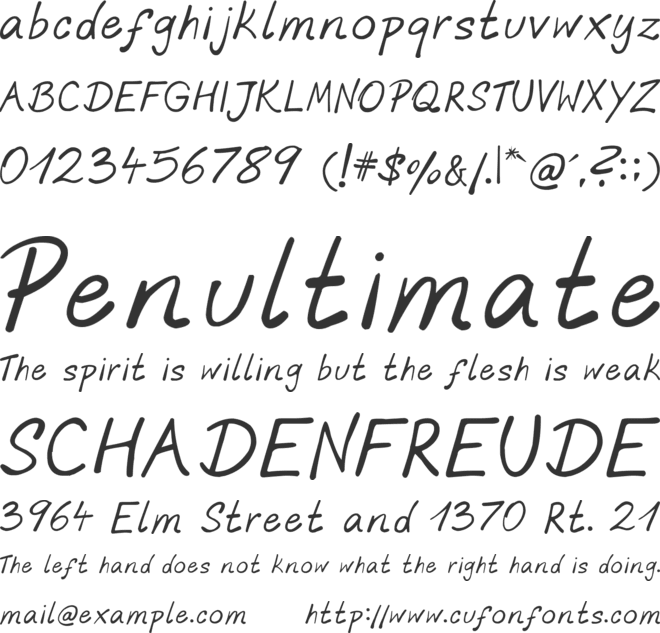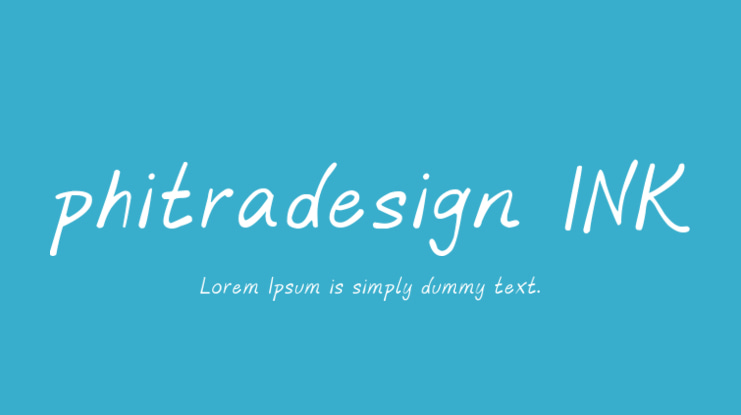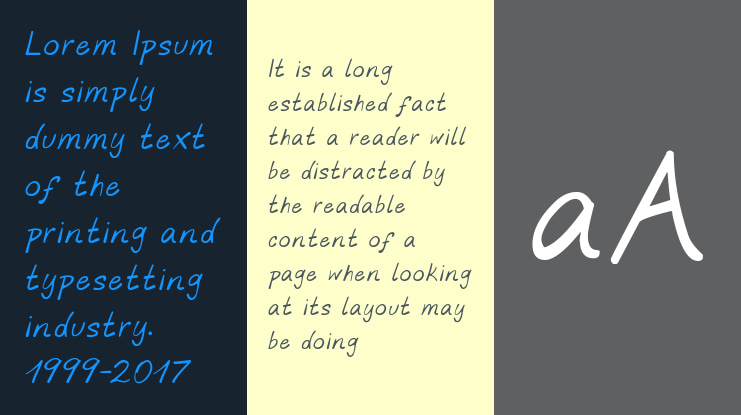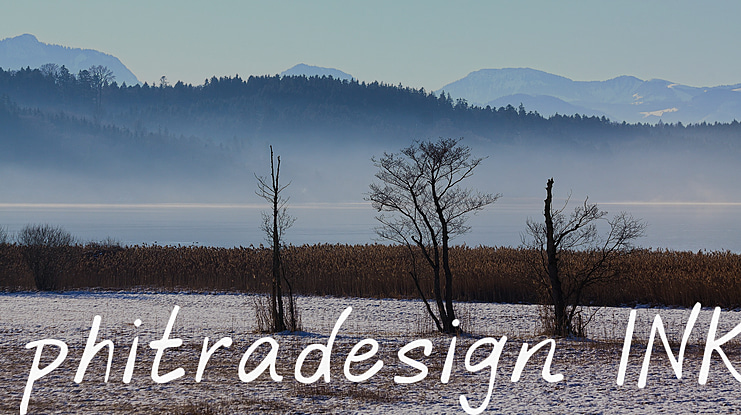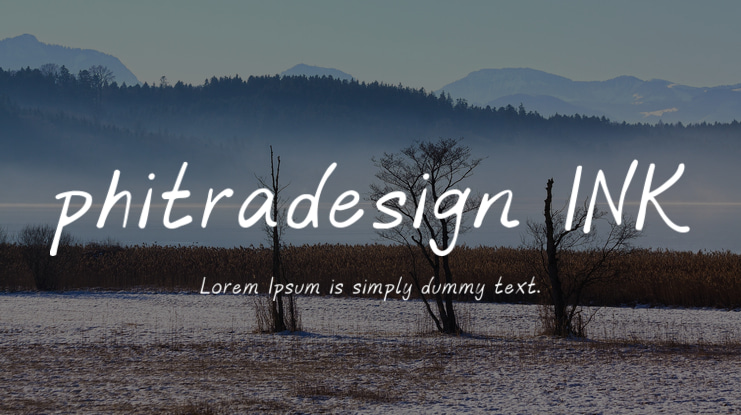
phitradesign INK Font
This is my second font, which I put a lot of afford in. However I want this font to be free for private as well as for commercial Use. It contains over 200 Characters with almost all special characters. It has a nice and realistic handwritten Style, in a old fashioned way.